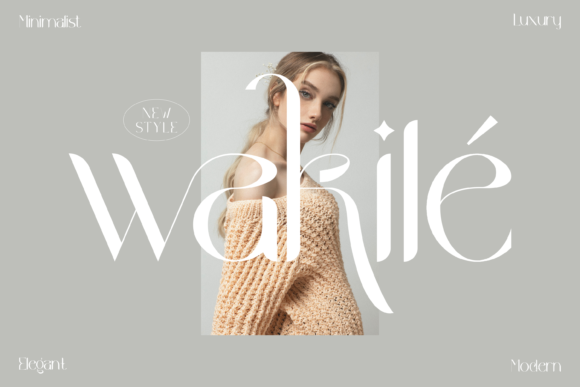
Introducing Wakile Font, a breathtaking display font that will transform your designs into works of art. Its delicate strokes, beautiful curves, and uniquely crafted characters create a captivating visual experience that will leave your audience spellbound.
With its PUA encoding, Wakile Font grants you effortless access to an array of stunning glyphs and ligatures, empowering you to unleash your creativity and add a touch of elegance to your projects. Whether you're designing logos, branding materials, social media graphics, or eye-catching headlines, Wakile Font is your perfect companion.
Immerse yourself in the world of Wakile Font and let your imagination soar. Its versatility knows no bounds, adapting seamlessly to a wide range of design styles. From classic and timeless to modern and edgy, Wakile Font effortlessly elevates your creations, adding a touch of sophistication and charm.
Step into the realm of Wakile Font and discover a world of endless possibilities. Its delicate beauty will add a touch of grace to your designs, while its strong personality will make a lasting impression. Trust in Wakile Font to transform your projects into visual masterpieces that captivate and inspire.